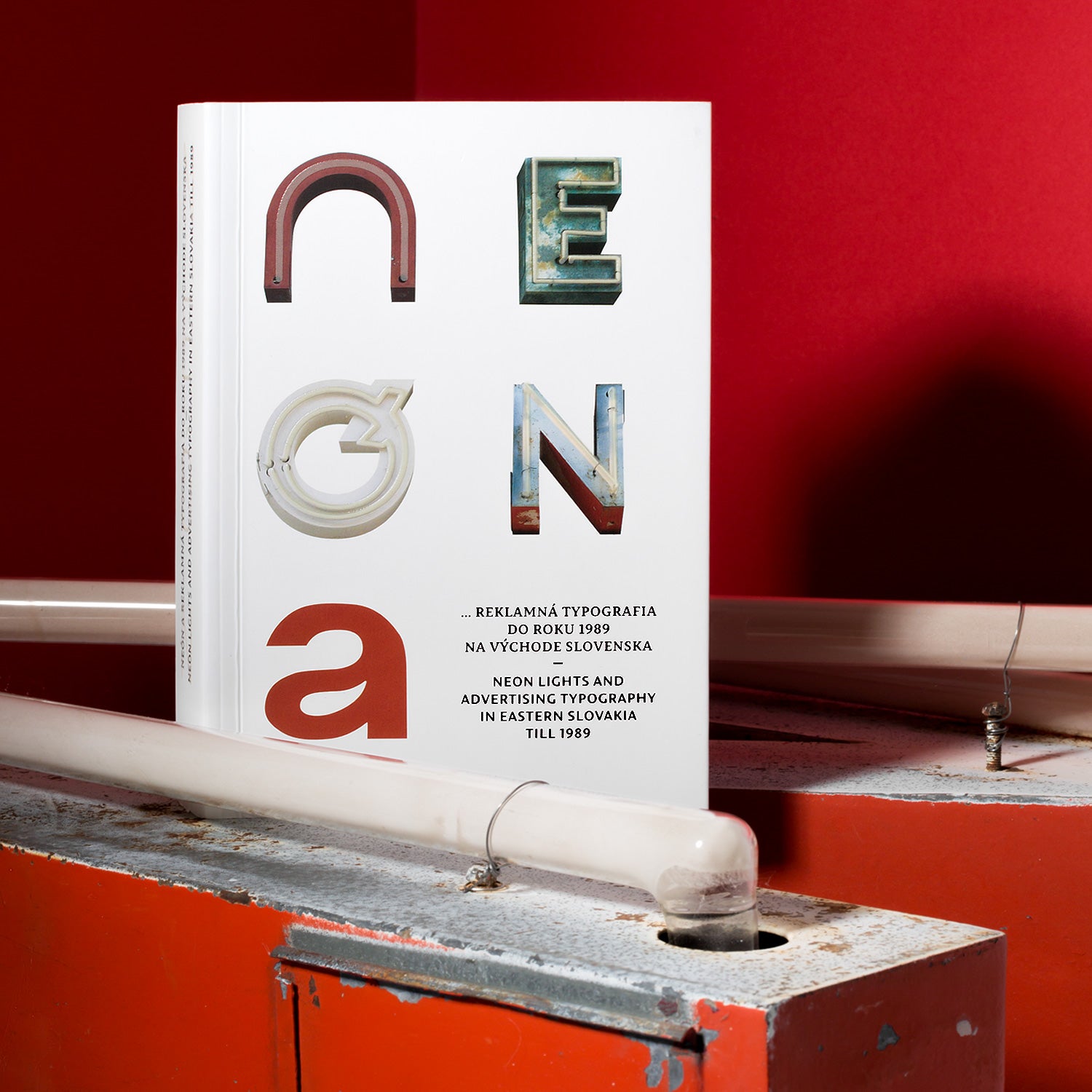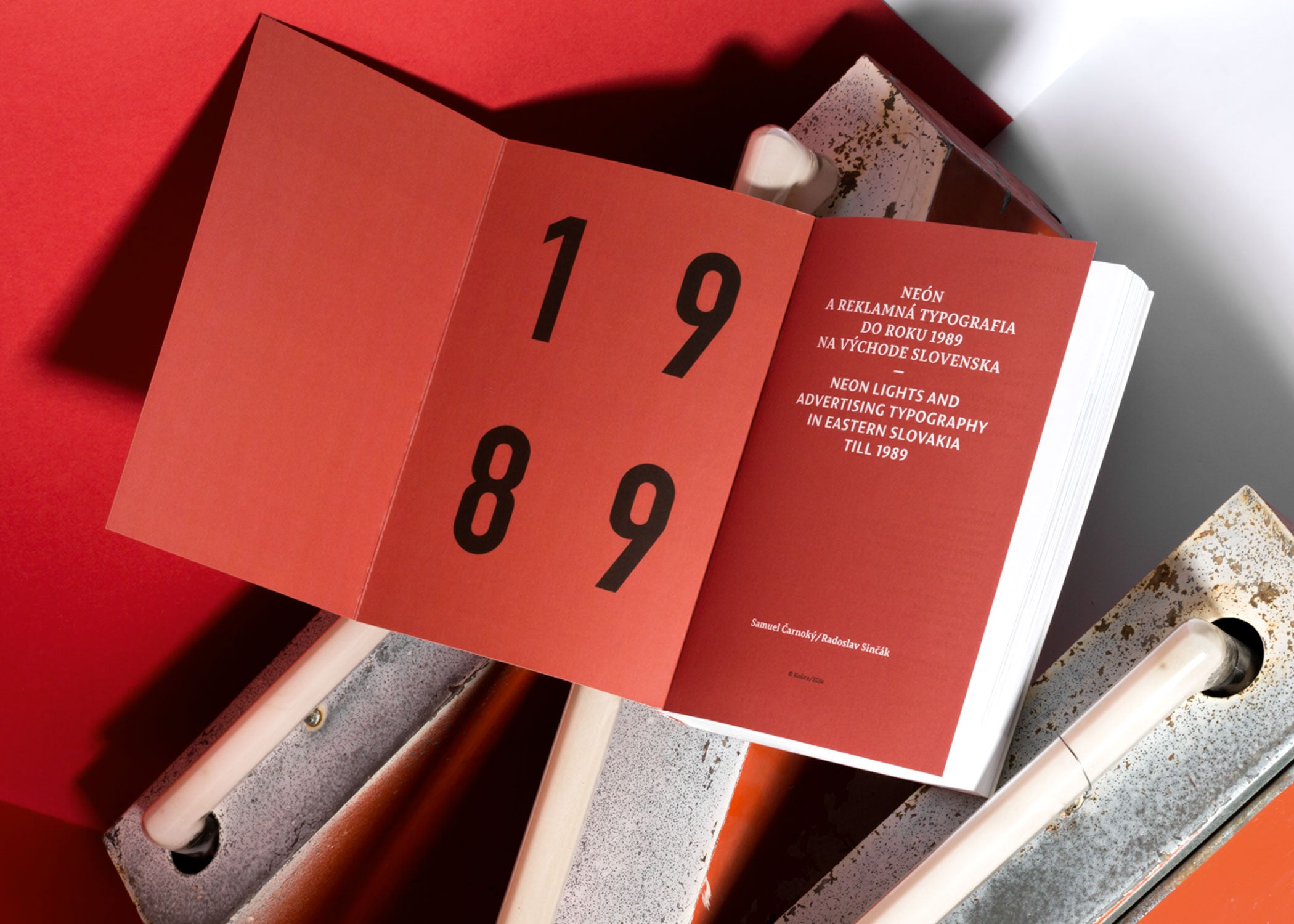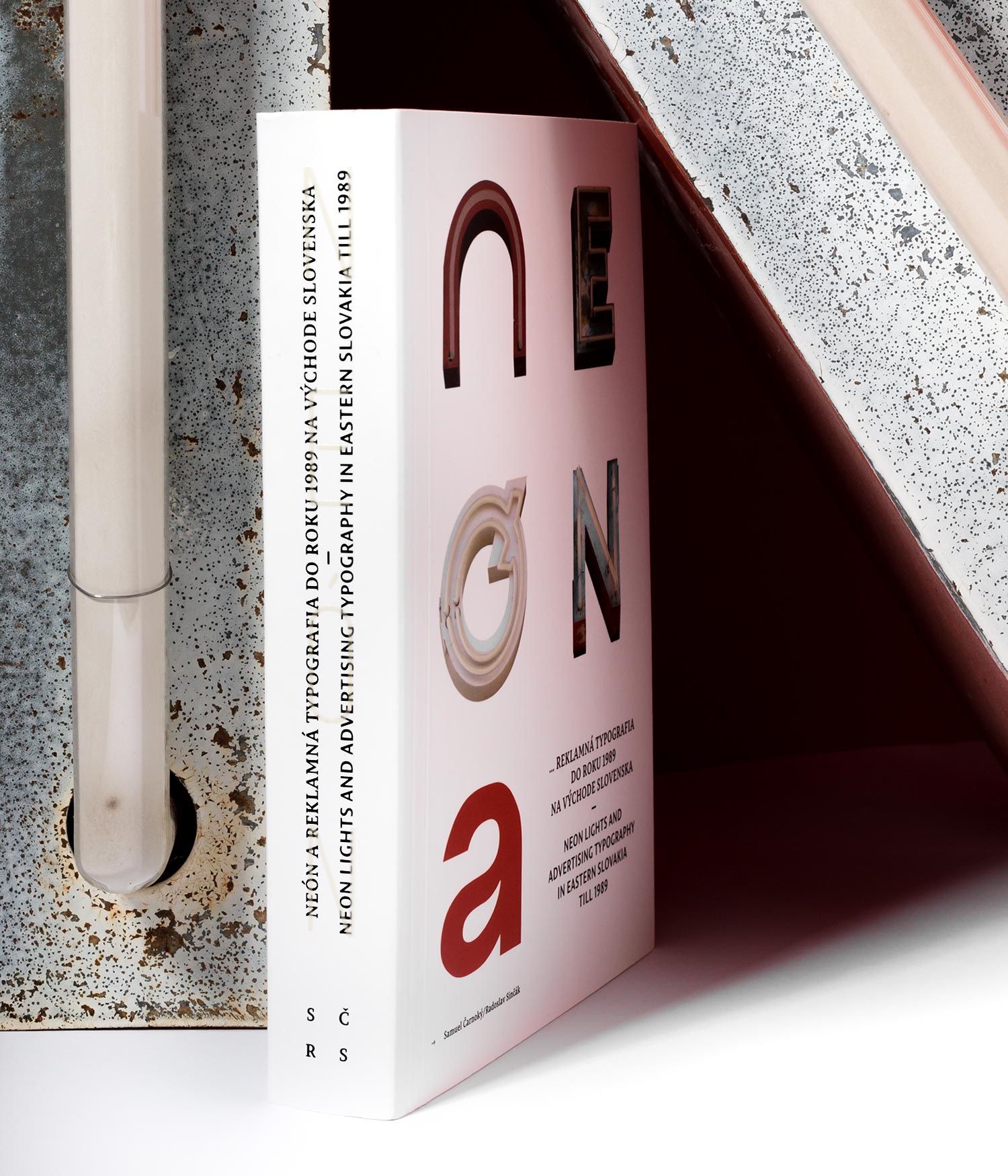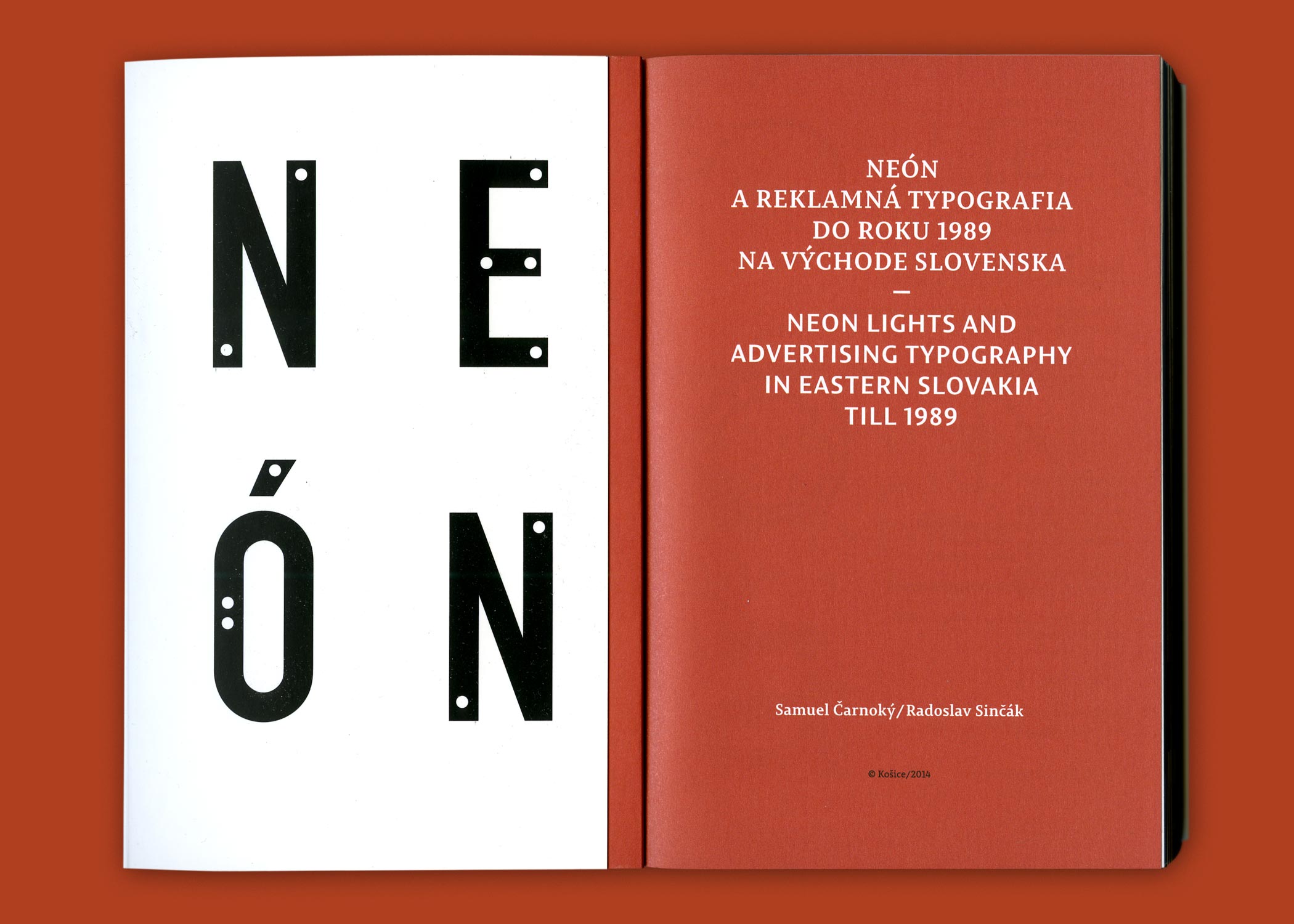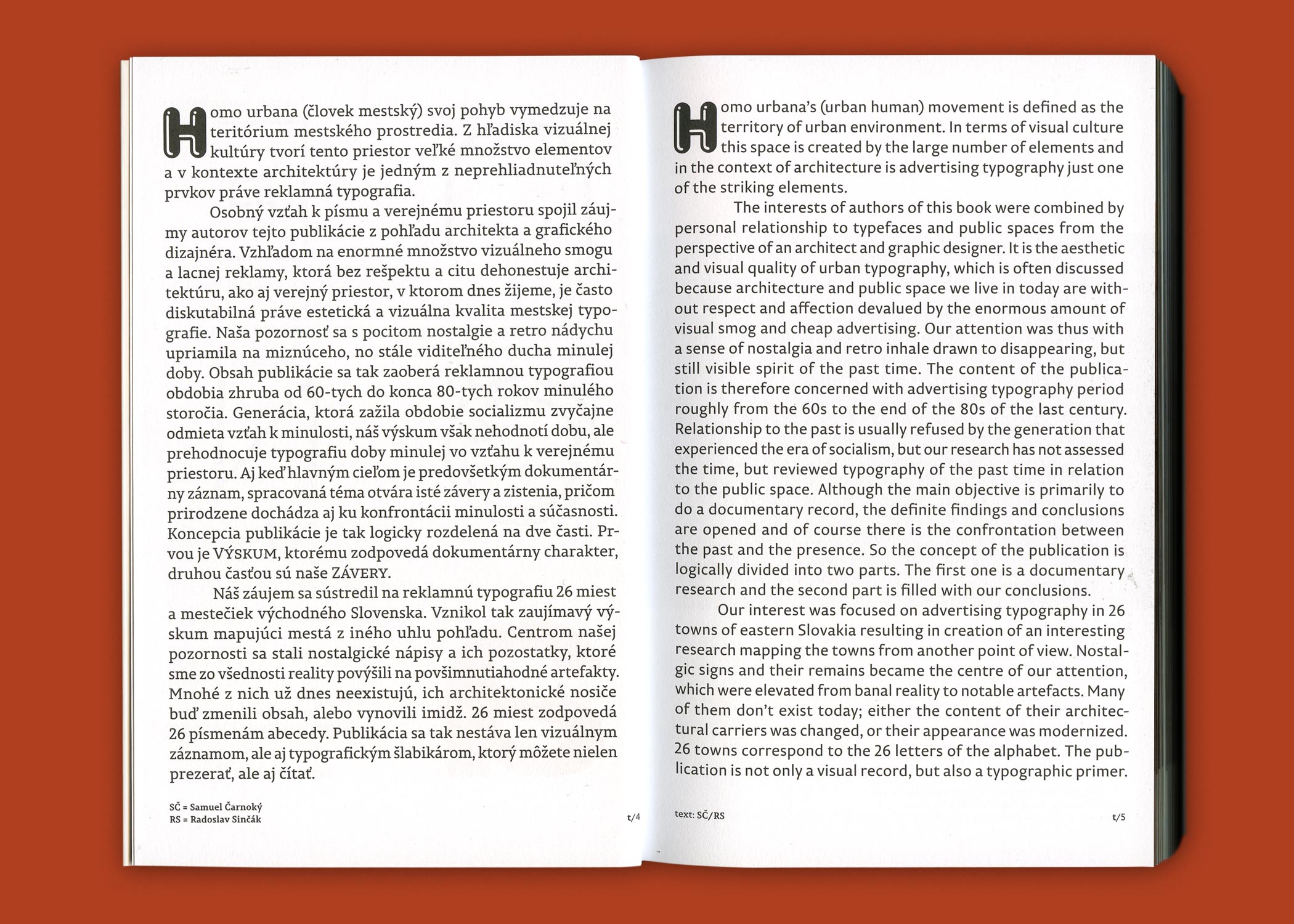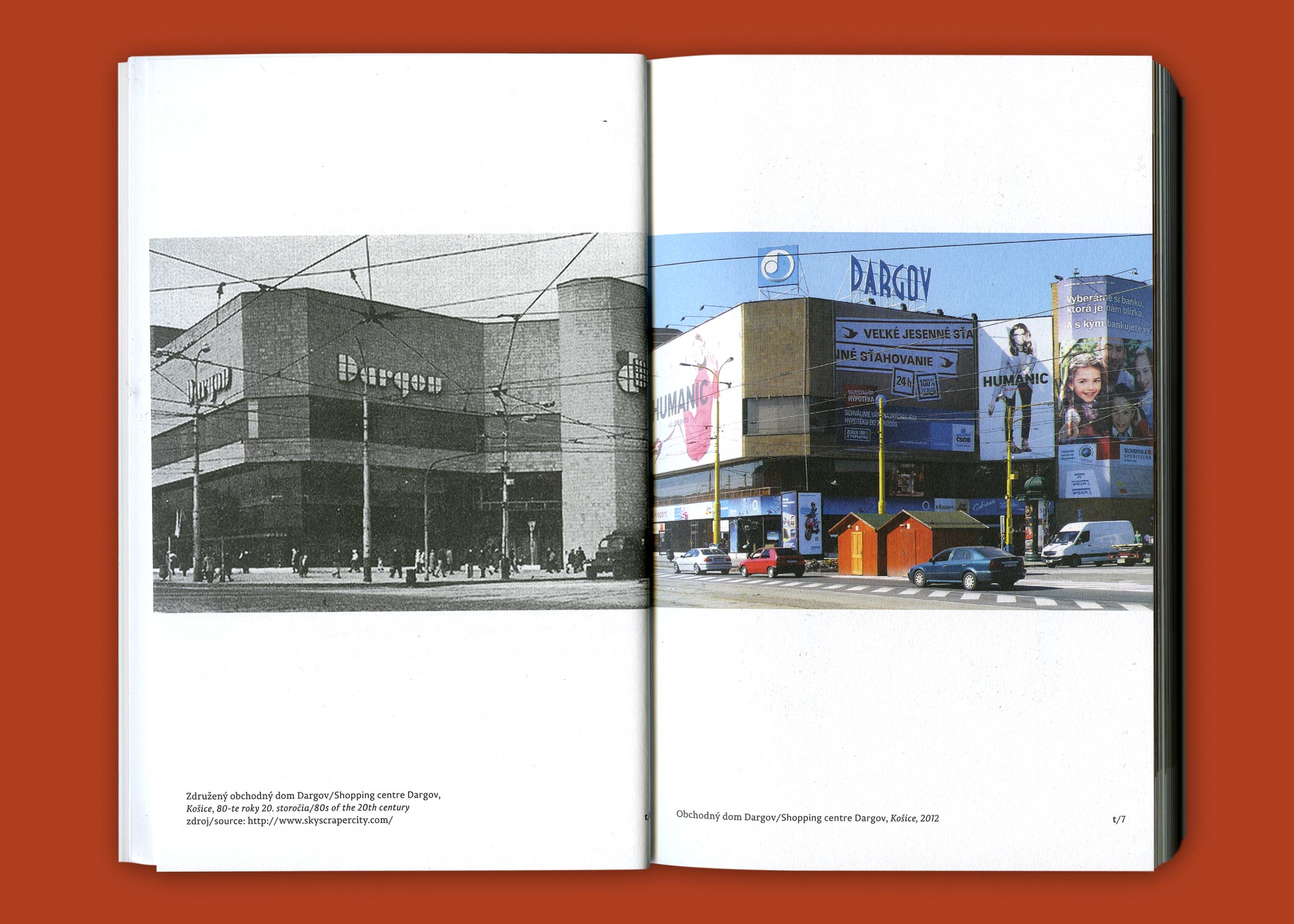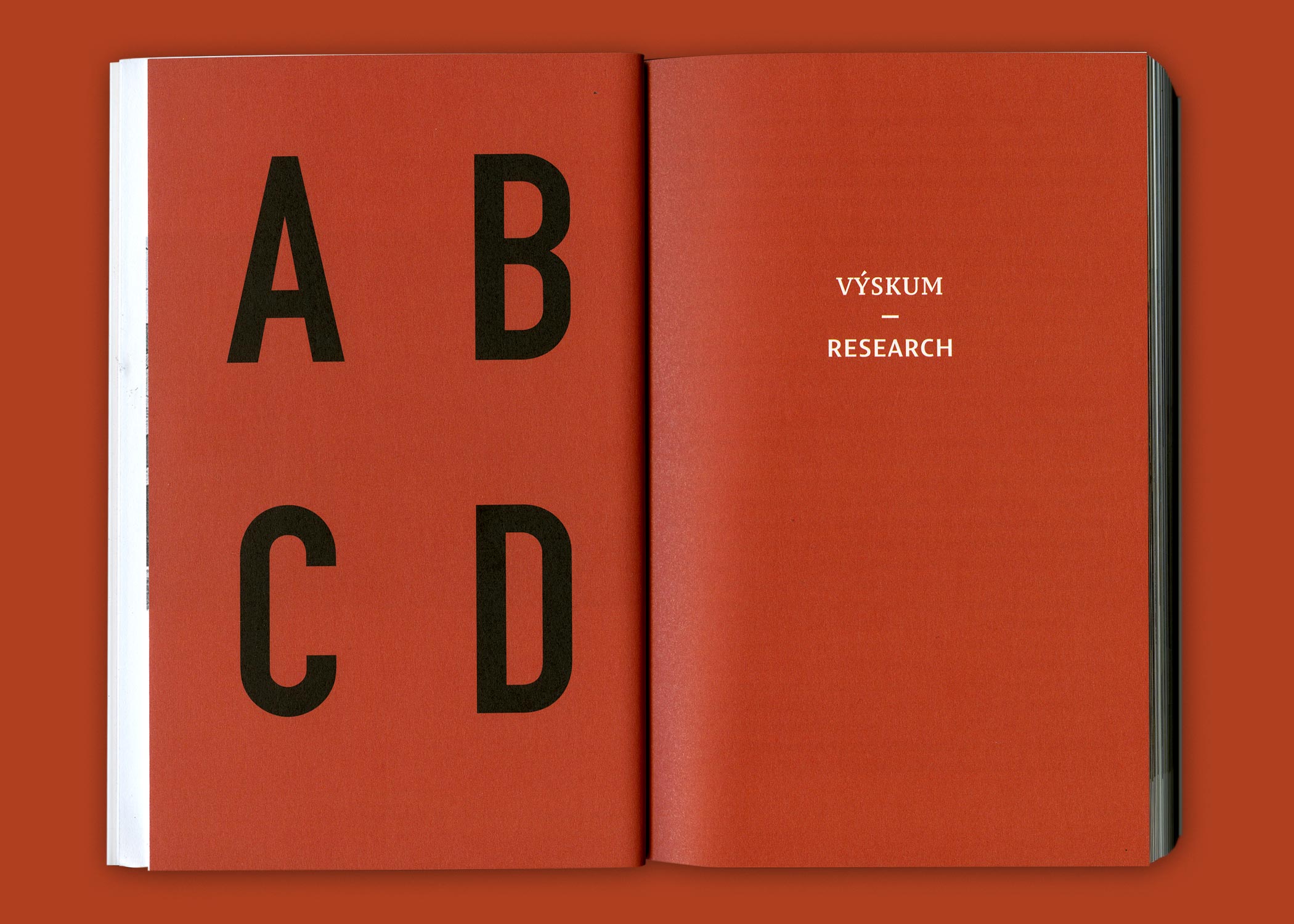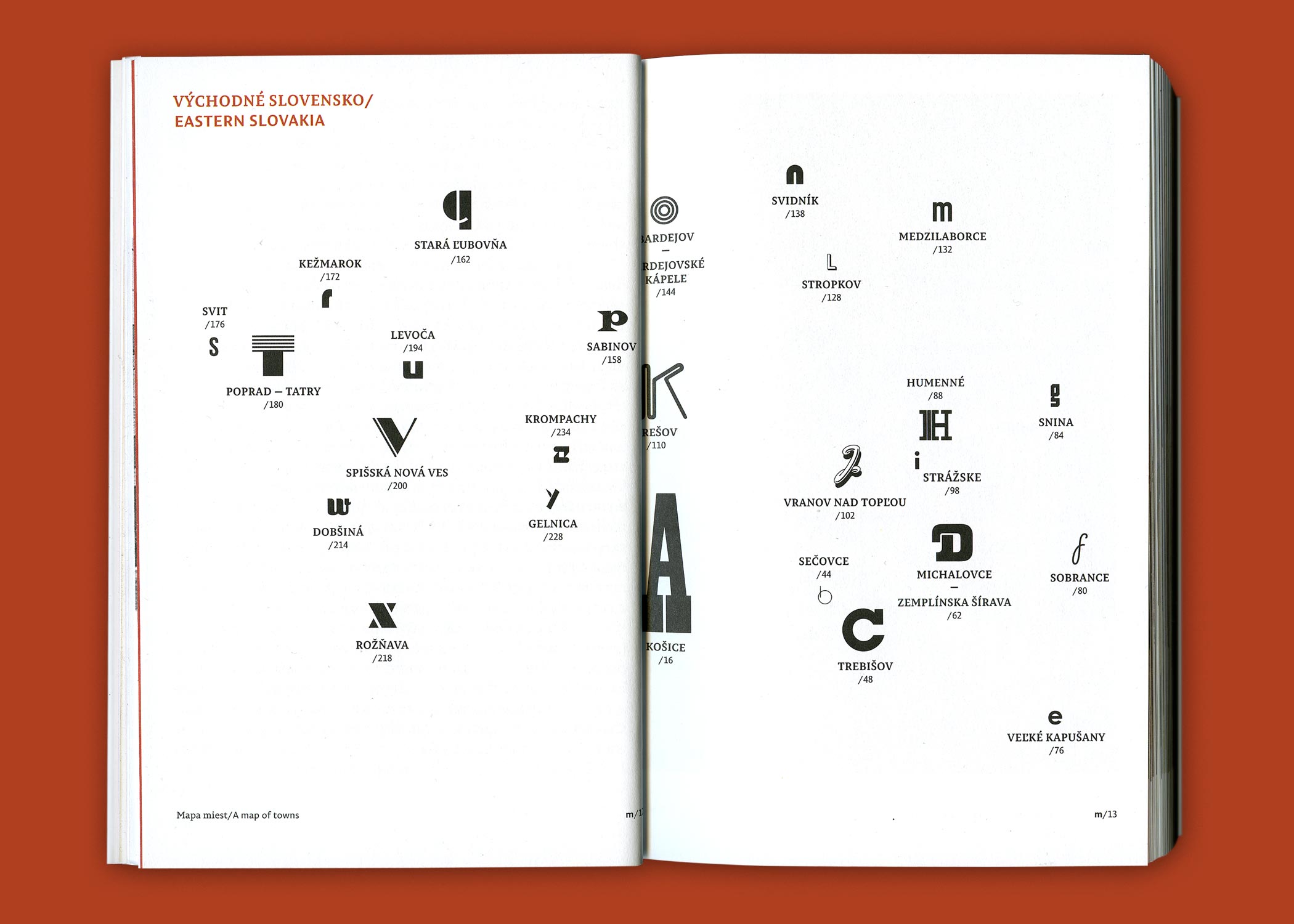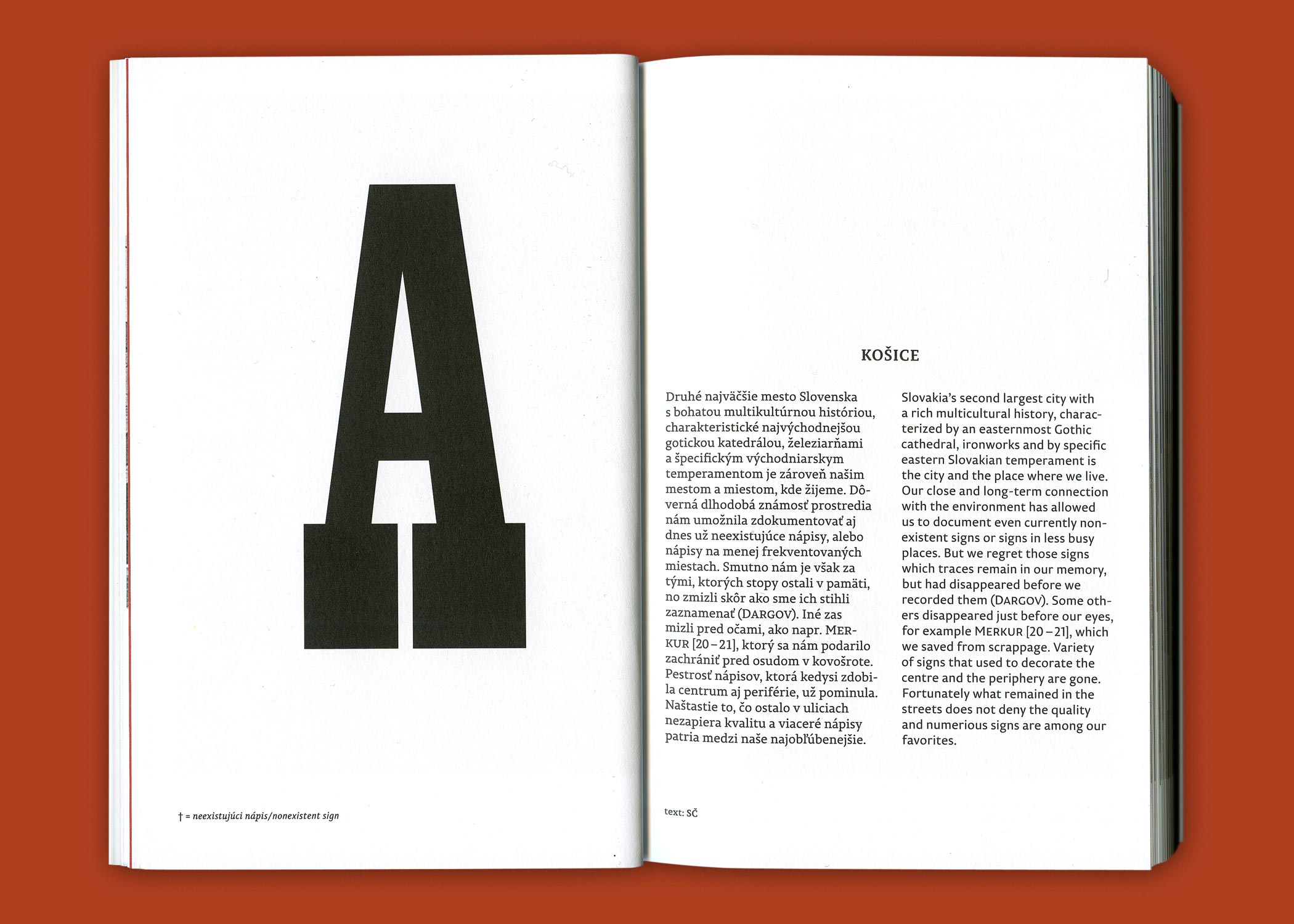
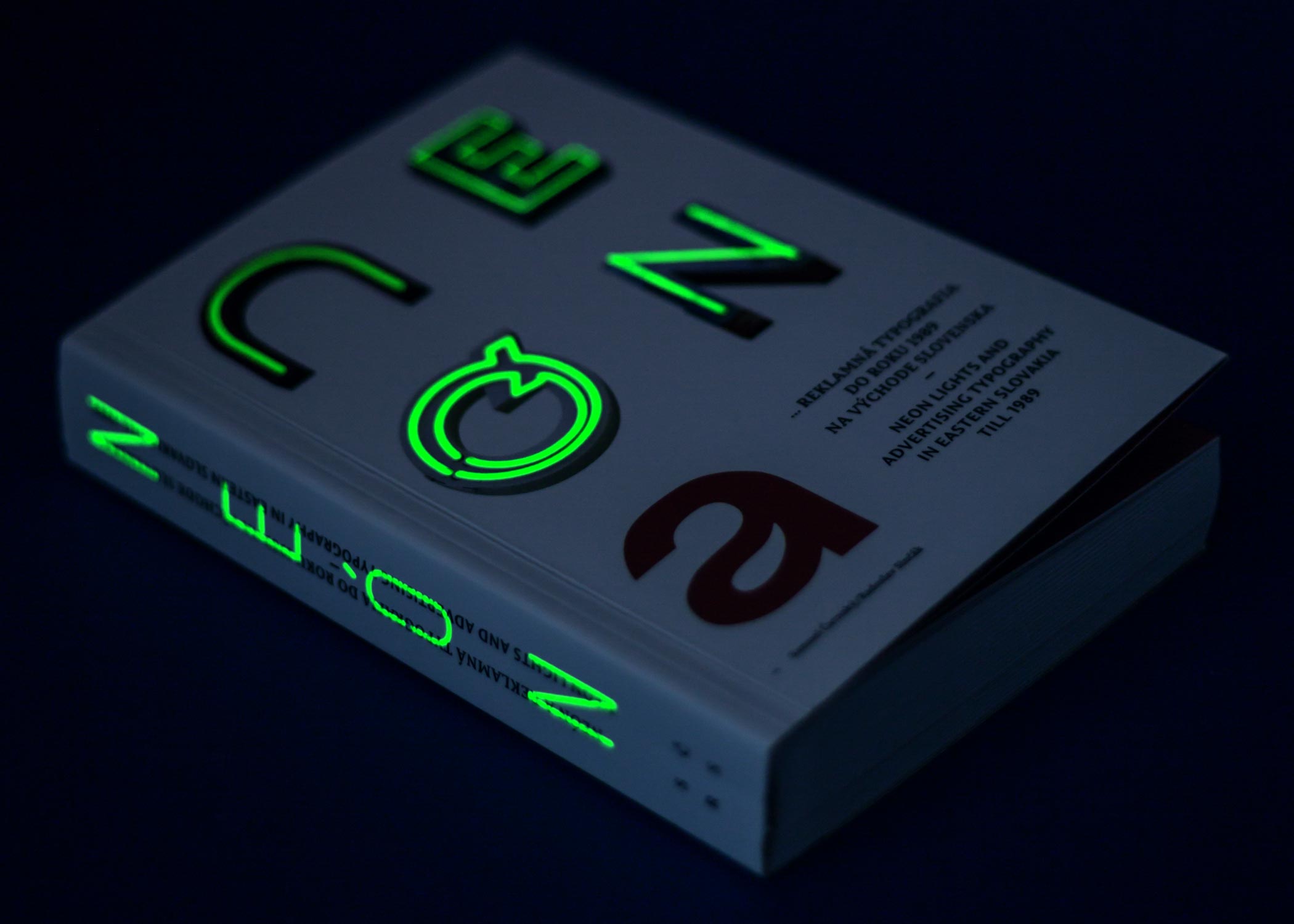
A documentary publication mapping nostalgic and disappearing neons and advertising signs from the past (cold war period) in towns of eastern Slovakia. a visual research from 26 towns (symbolically corresponding to the 26 letters of the alphabet), completed by authors’ subjective conclusions. The interests of authors were combined by their personal relationships to typefaces and public spaces from the perspective of an architect and a graphic designer.
Samuel Čarnoký / Radoslav Sinčák: Neon lights and advertising typography in estern Slovakia till 1989 • paperback — Otabind • 125 × 185 × 28 mm • 336 pages • offset / phosphor print • published by: Samuel Čarnoký, Košice 2014 • photo credits: Diana Dobrescu and author • design: © Samuel Čarnoký (2014)